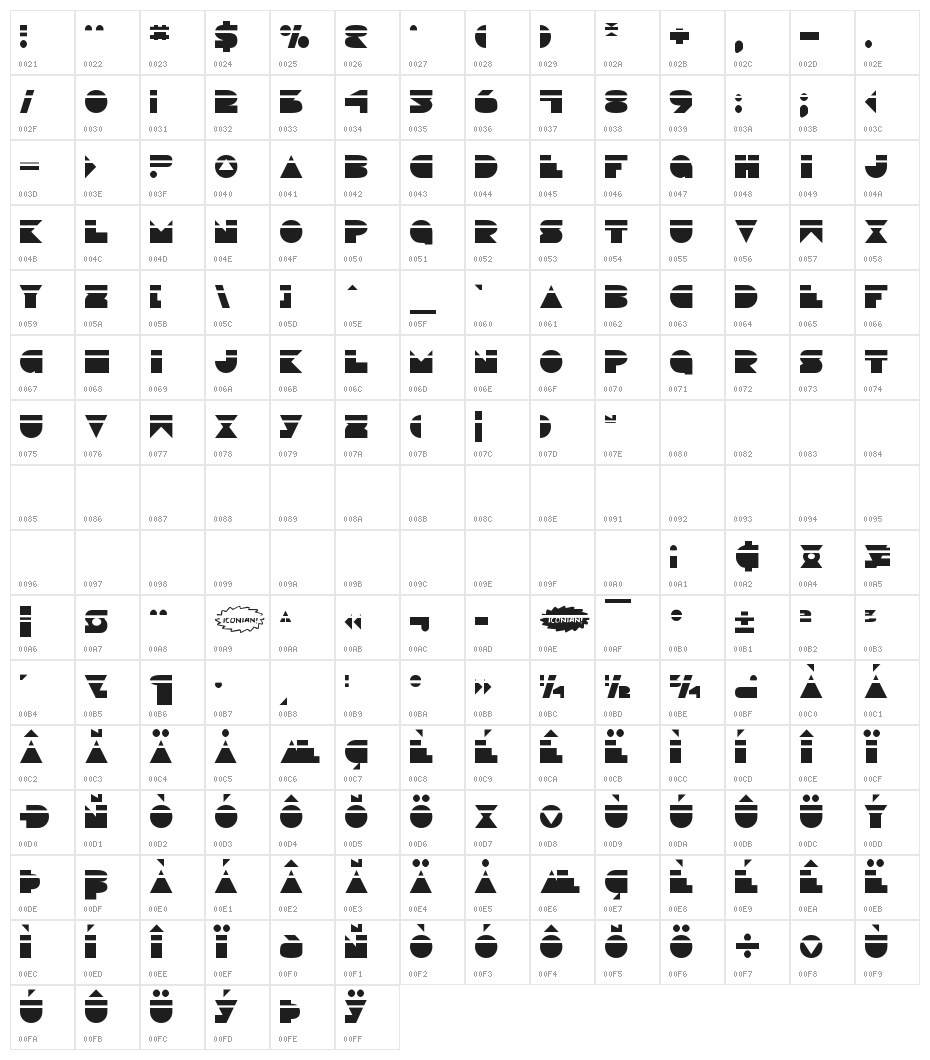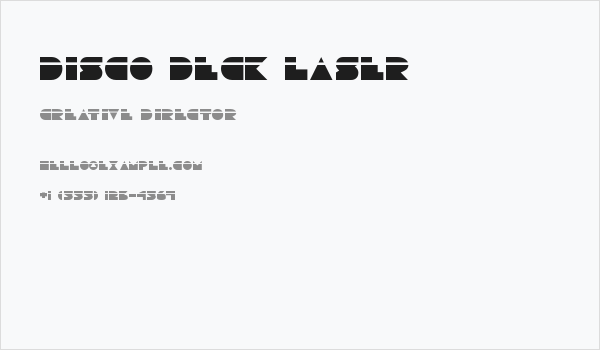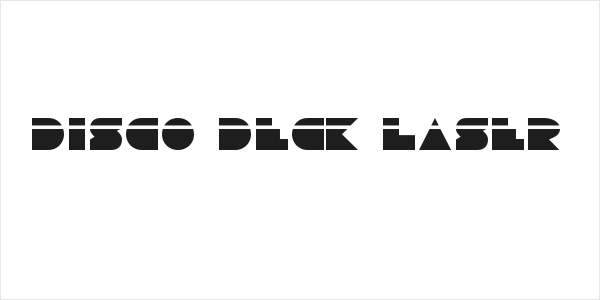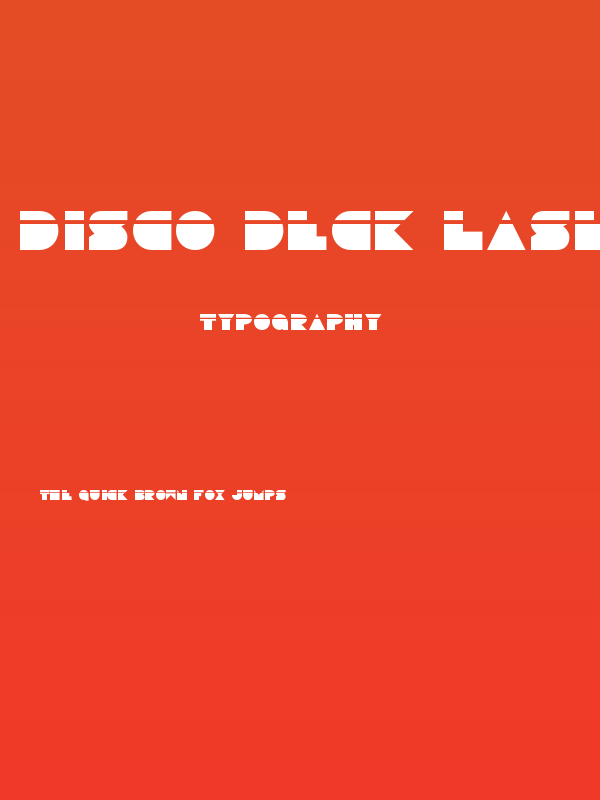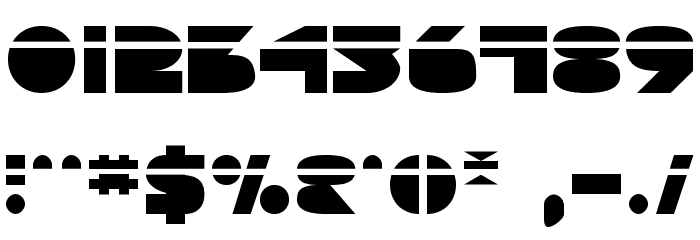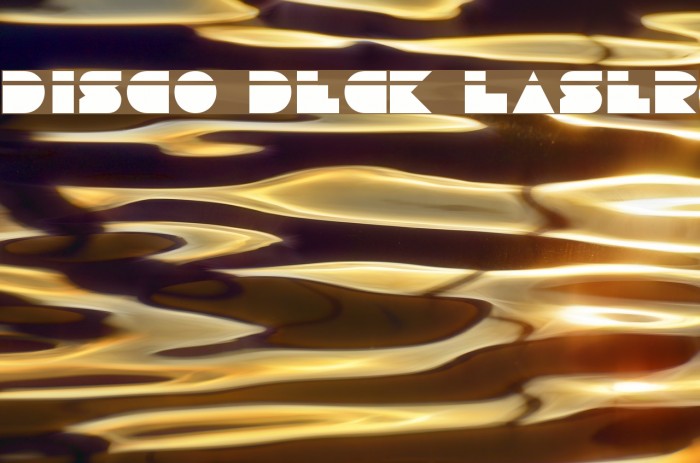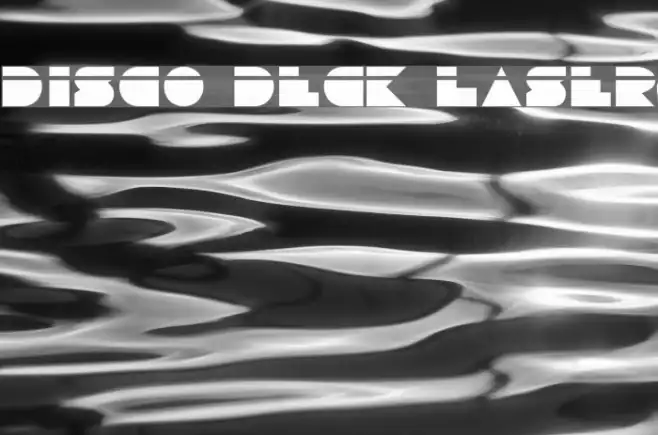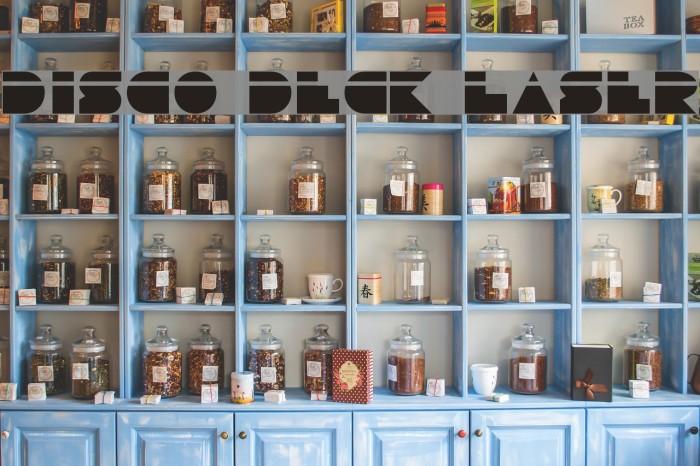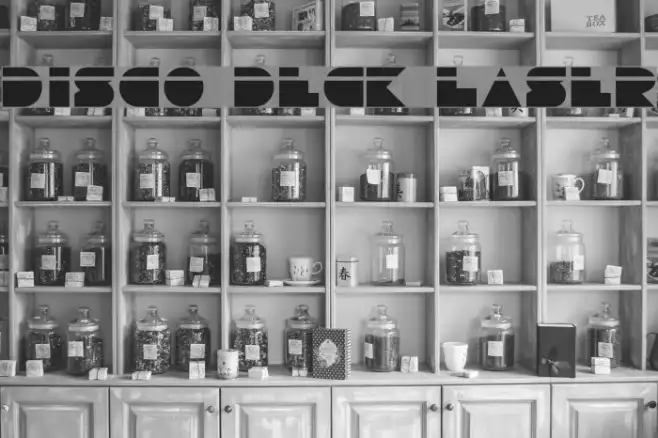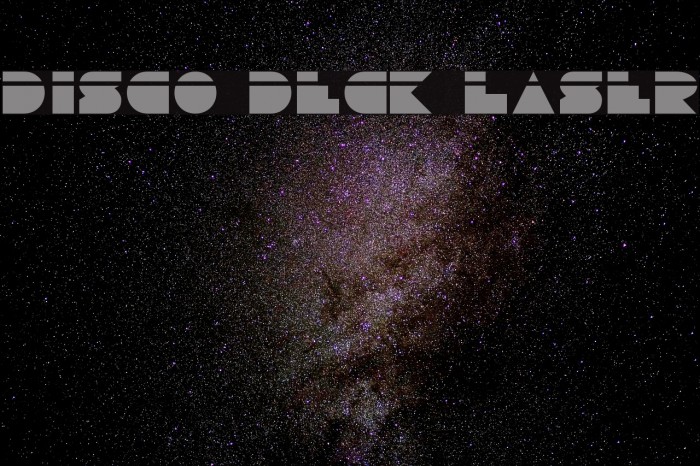
Disco Deck Laser Font
Disco Deck Laser Description
This font features a bold, geometric design with a futuristic and retro aesthetic. The characters are constructed with sharp angles and solid shapes, creating a sense of movement and energy. The uppercase and lowercase letters maintain a consistent style, with a strong emphasis on symmetry and balance. The numbers and special characters follow the same design principles, ensuring a cohesive look across all elements. The font's unique style makes it stand out, making it ideal for projects that require a modern and eye-catching appearance.
| Proposed Projects | Ideal for posters, album covers, video game graphics, and branding that requires a modern, energetic look. |